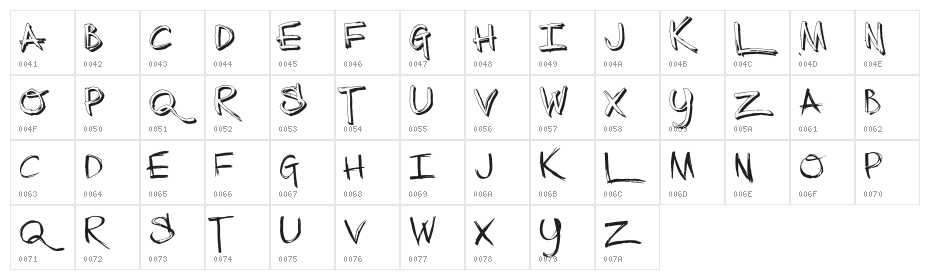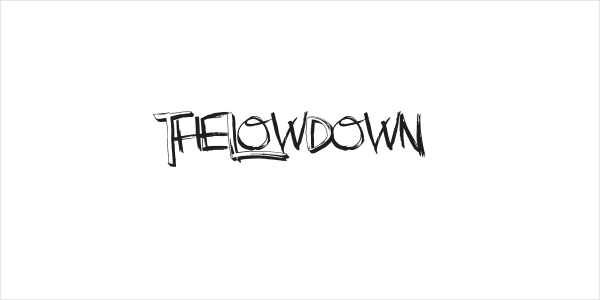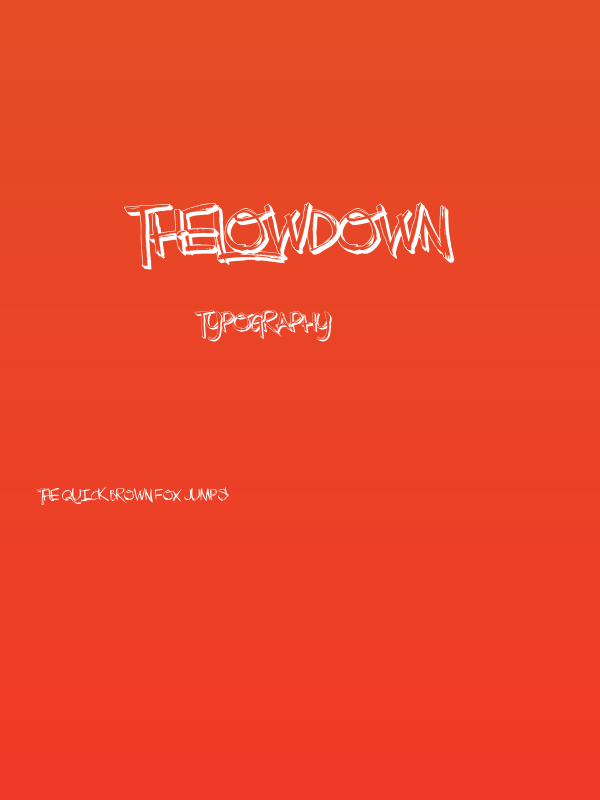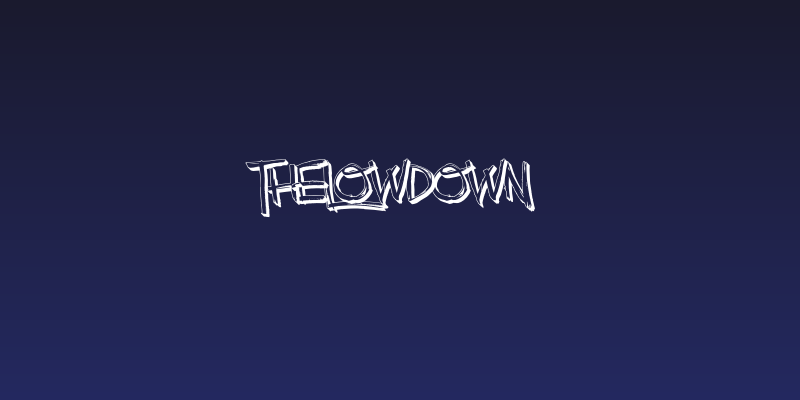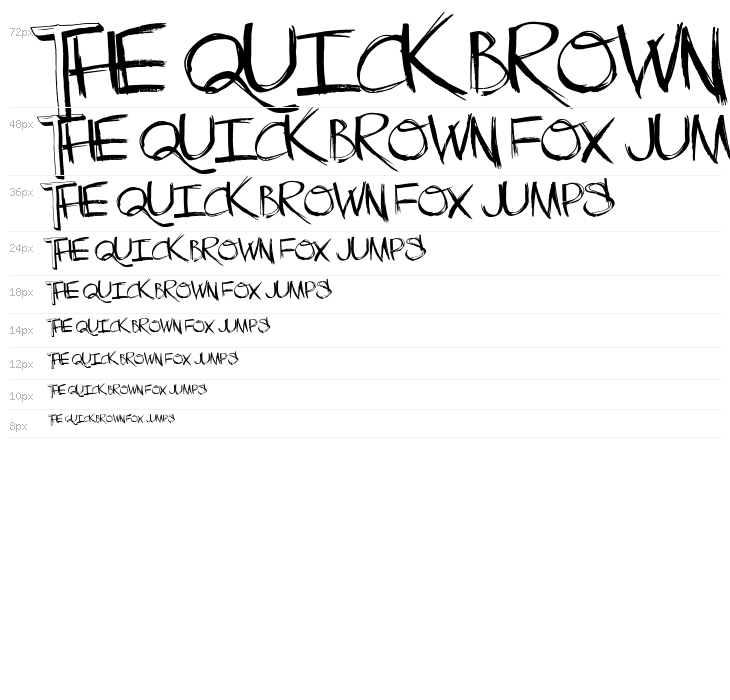
TheLowDown Font
TheLowDown Description
This font features a bold and expressive style with a hand-drawn appearance. The letters are characterized by their dynamic and energetic strokes, giving a sense of movement and creativity. The uppercase and lowercase letters maintain a consistent style, with exaggerated curves and varying line thicknesses that add a playful and artistic touch. The font's unique design makes it stand out, with a slightly rough texture that enhances its handmade feel. It is well-suited for projects that require a bold and artistic statement, capturing attention with its distinctive and lively character.
| Proposed Projects | Ideal for graffiti art, posters, album covers, and creative branding projects. |